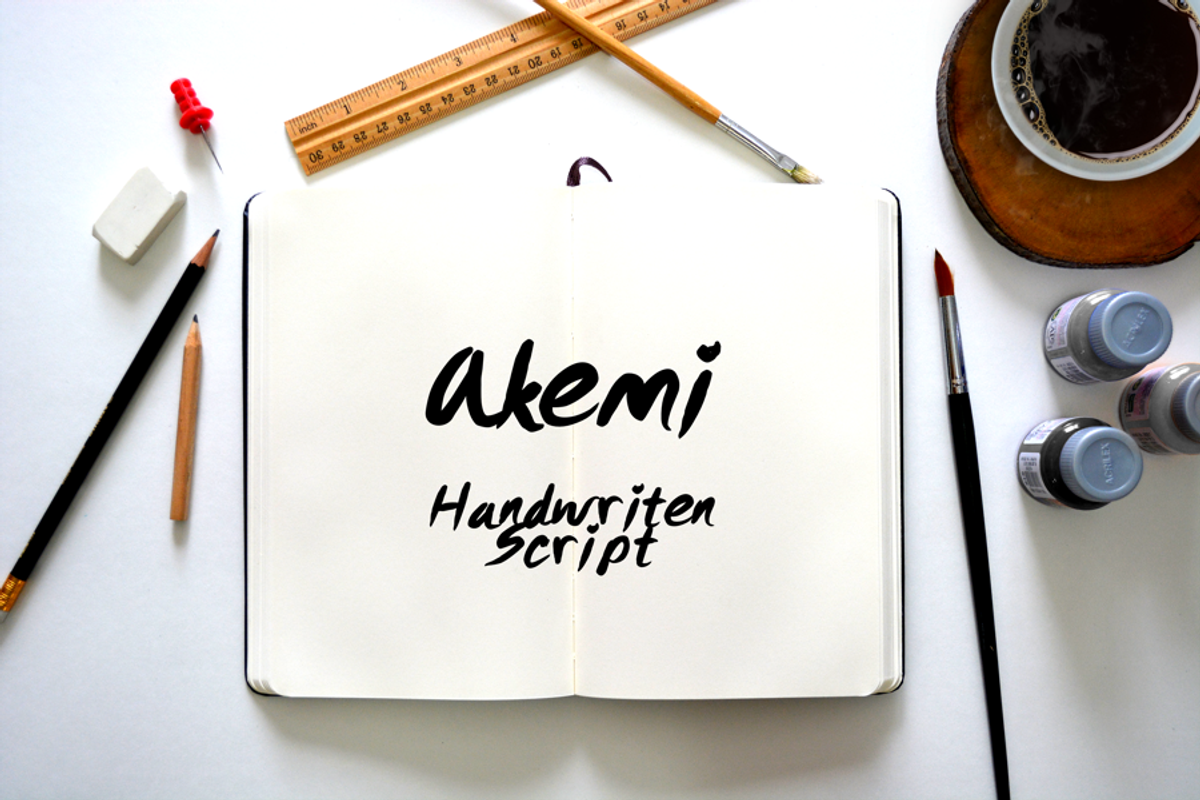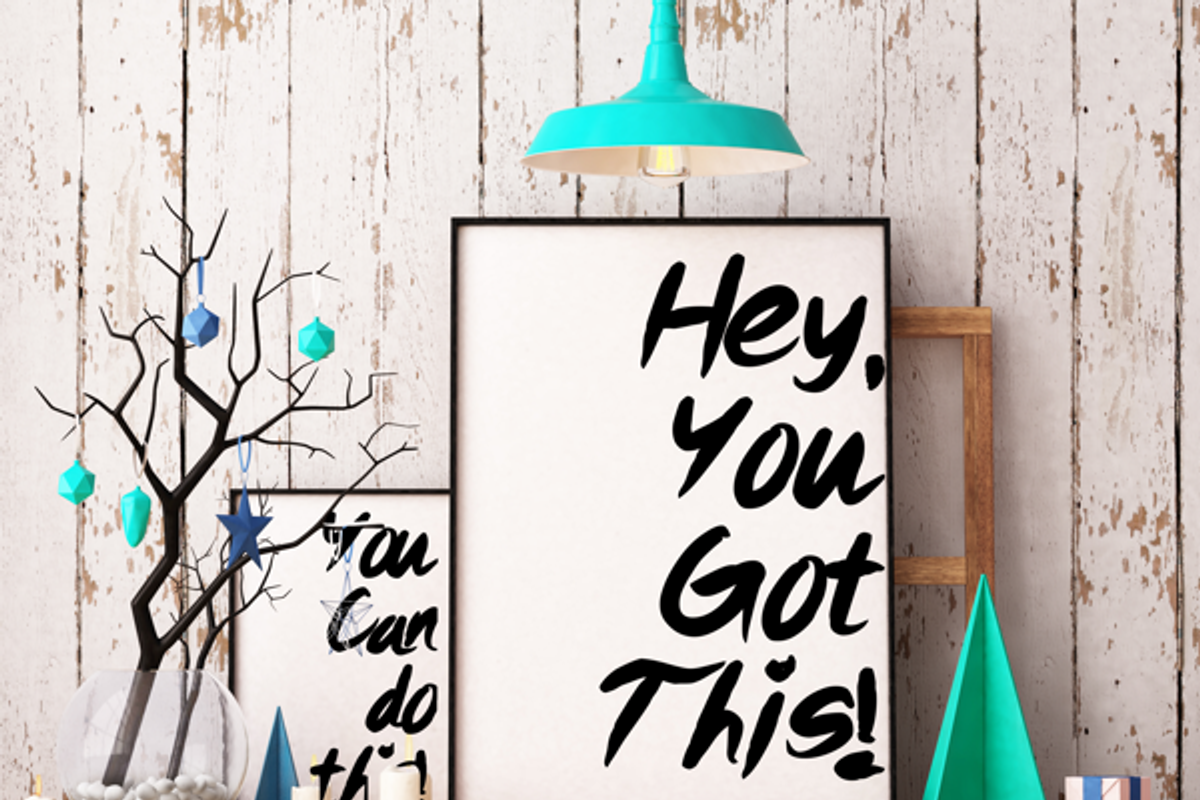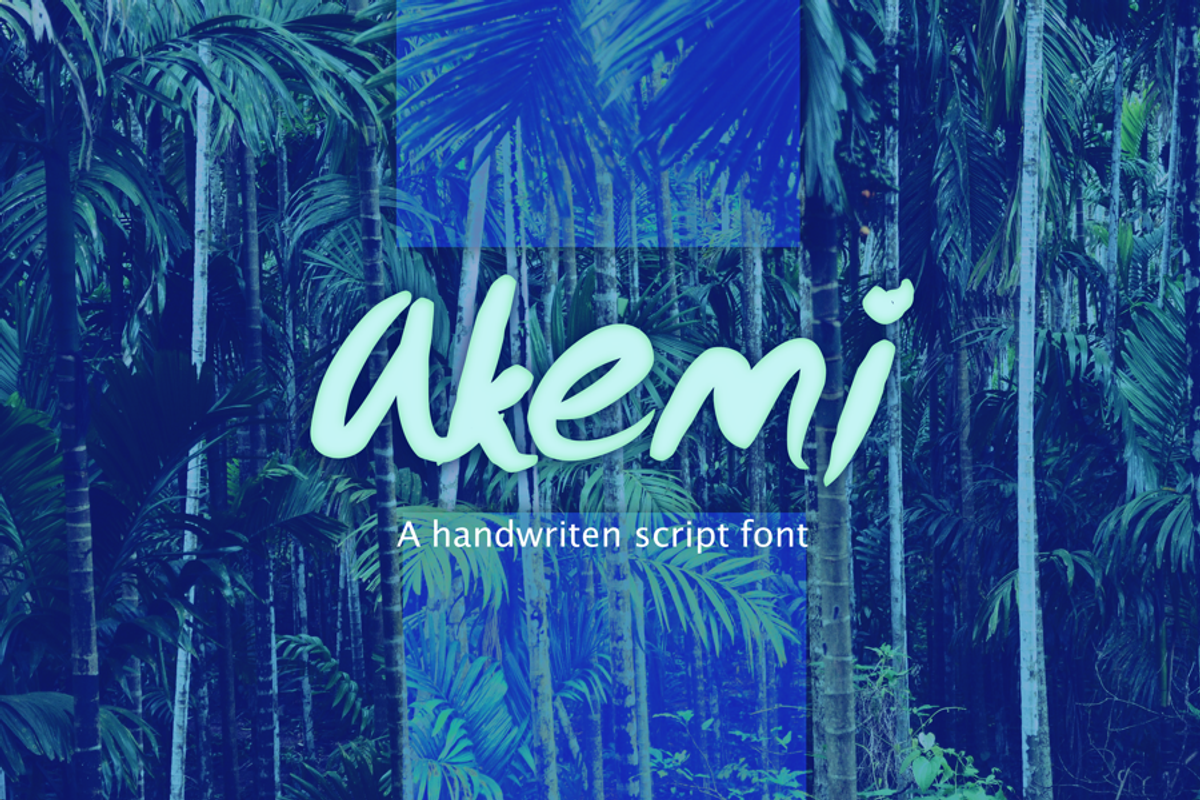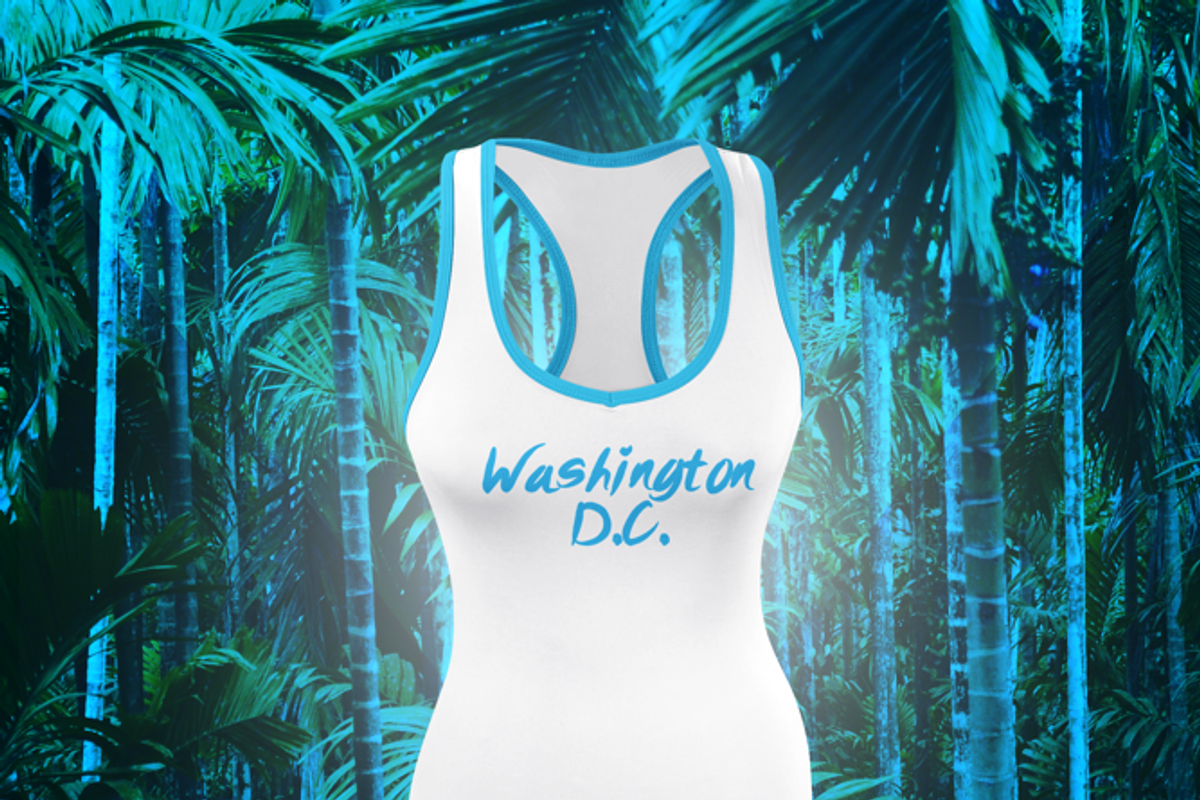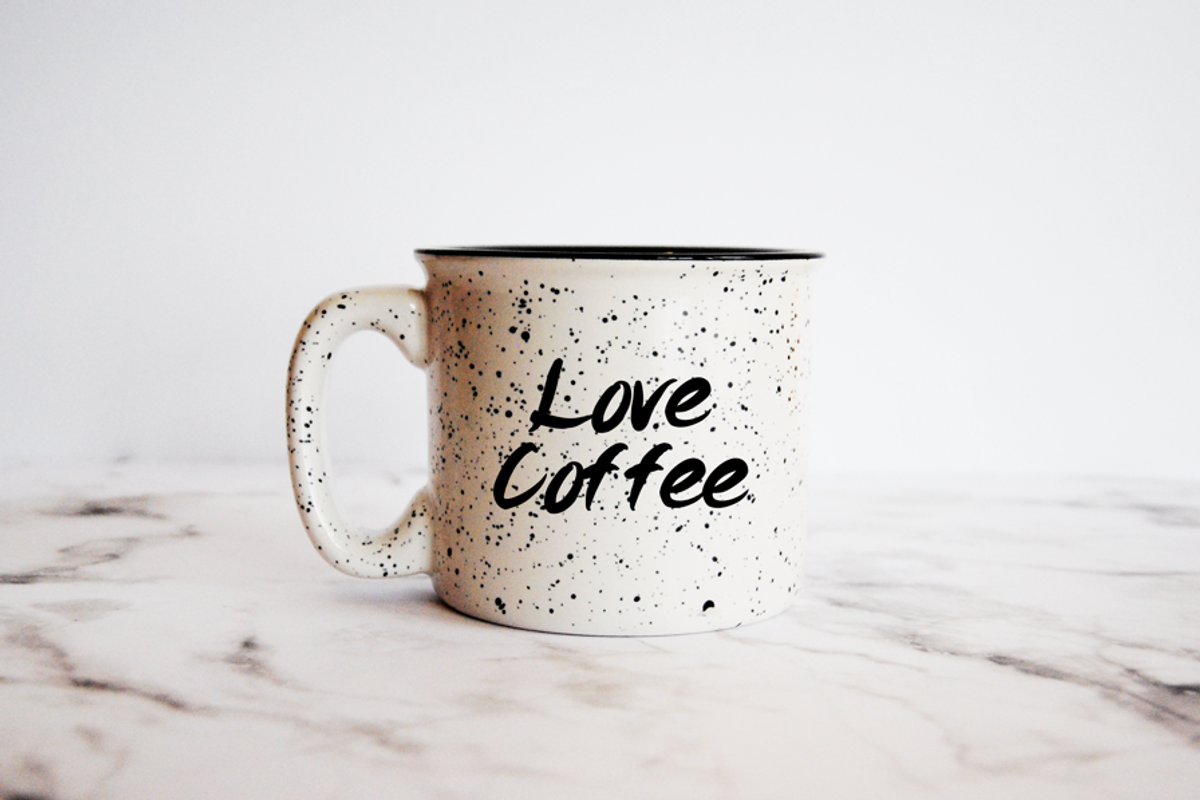
Akemi - Handwritten Script Font
Akemi - Handwritten Script Font by CosmicMedium is a font selected for branding, posters, packaging, typography.
- Akemi • A handwritten script font containing upper & lowercase characters, numerals and a large range of punctuation.
Akemi - Handwritten Script Font by CosmicMedium fits naturally into Branding, posters, packaging, typography.